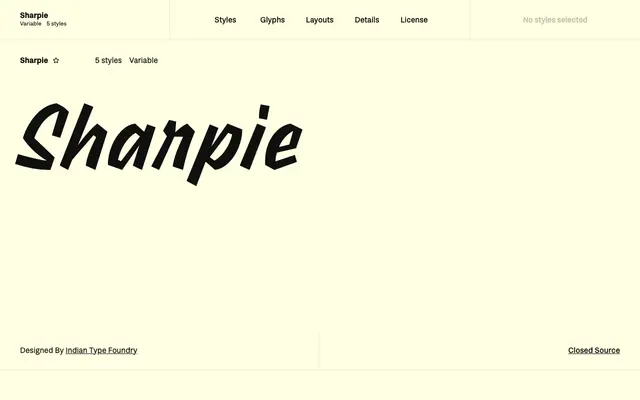
Sharpie
A sign-painterly display family from Indian Type Foundry, drawn as if written quickly with a flat brush and named after the marker that inspired its angular letterforms.
Five weights from Light to Black, all slanted and non-connecting, with stroke contrast that builds from modest in Light to dramatic in Black. Single-storey 'a' and 'g', a short x-height, and cap height aligned with ascenders give it a consistent lettering-script rhythm across the range. A variable font is included alongside the five static styles, and the family covers 135 languages across Latin Extended scripts.
Though categorised as Display by Fontshare, Sharpie draws directly from sign-painting and marker lettering traditions, with angular, slanted letterforms and strong stroke contrast that place it firmly in informal script-influenced display territory.